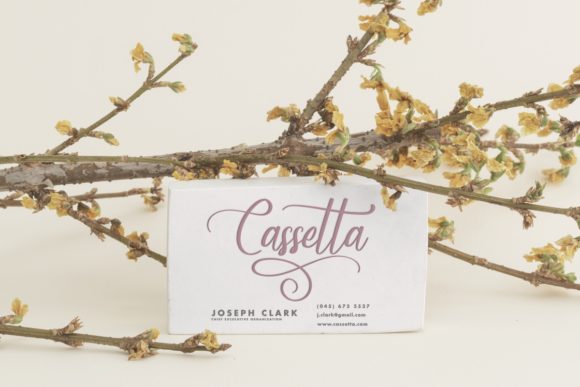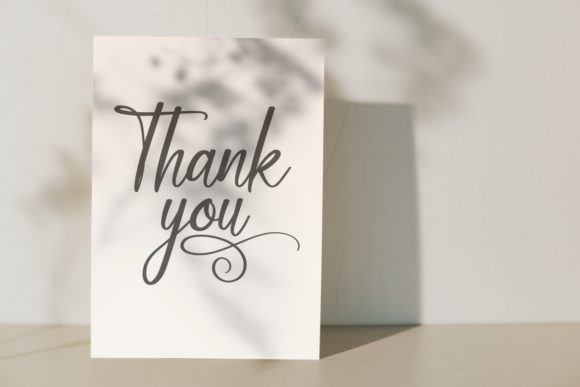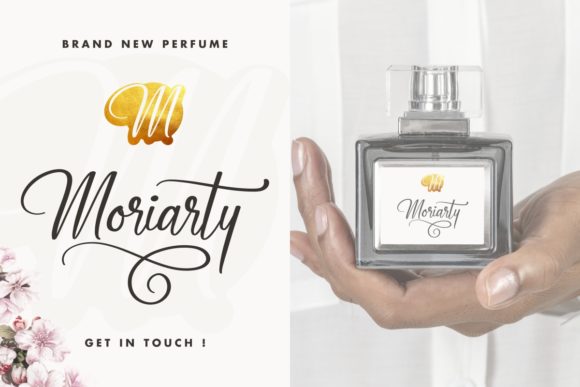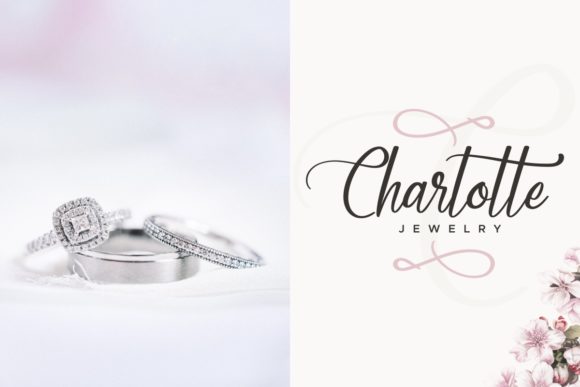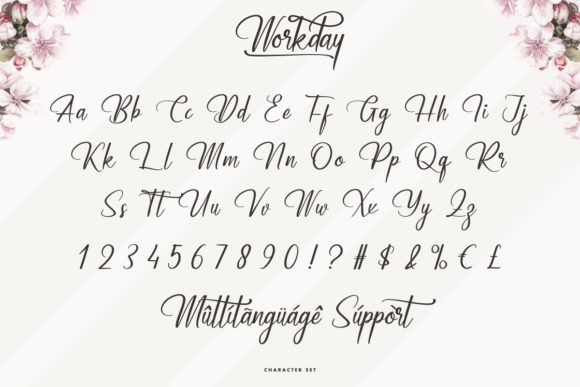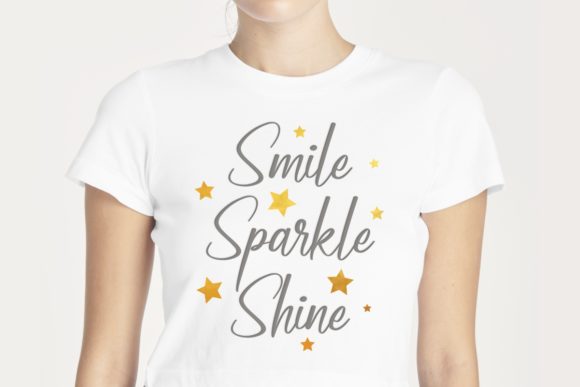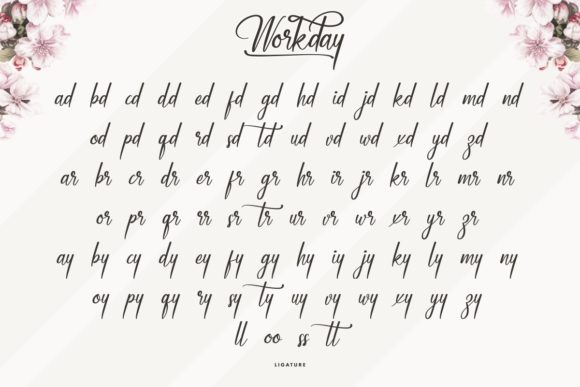
Workday Font
About Workday Font
Workday is a lovely and flowing handwritten font. It looks stunning on wedding invitations, thank you cards, quotes, greeting cards, logos, business cards and every other design which needs a handwritten touch.